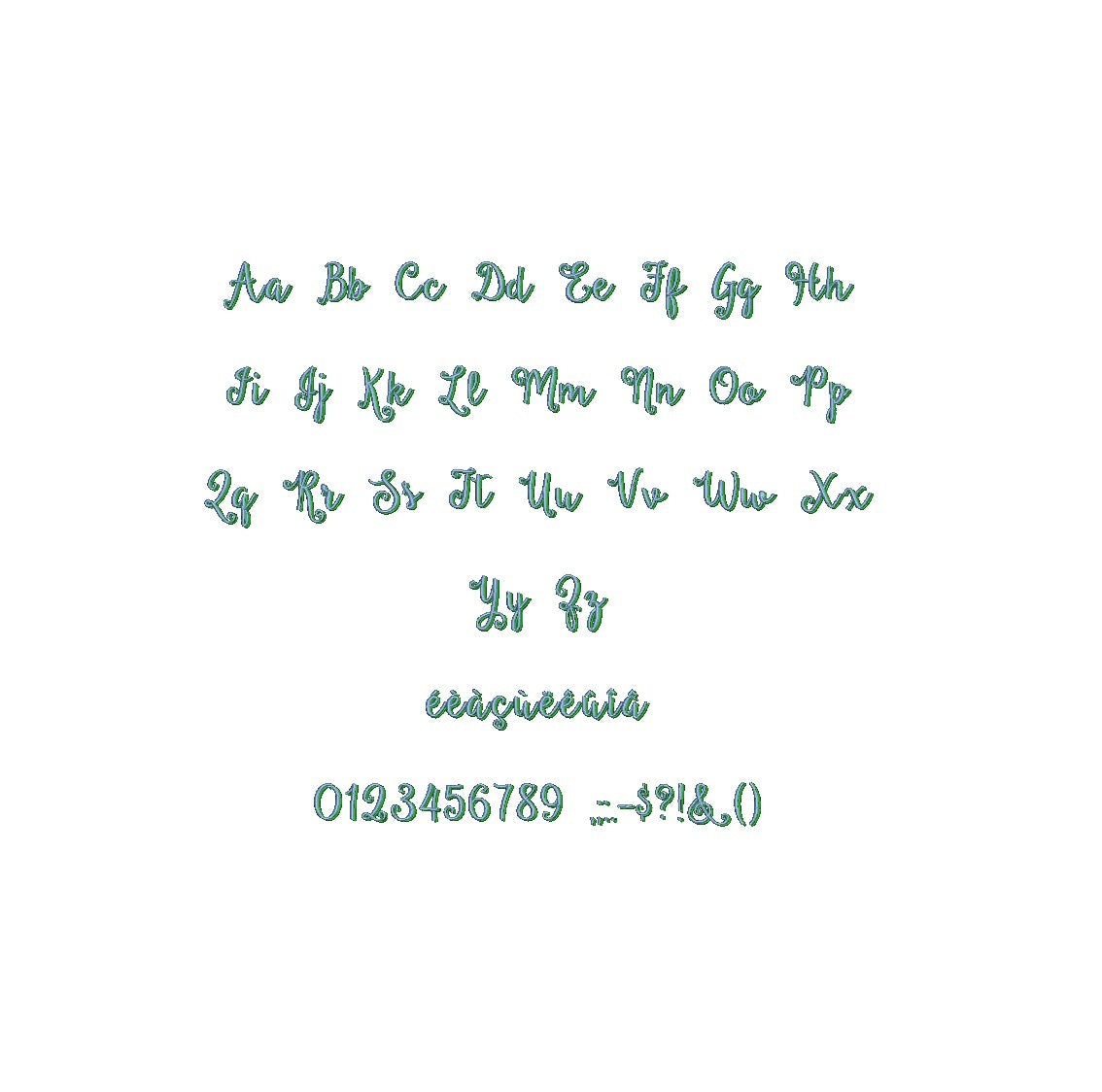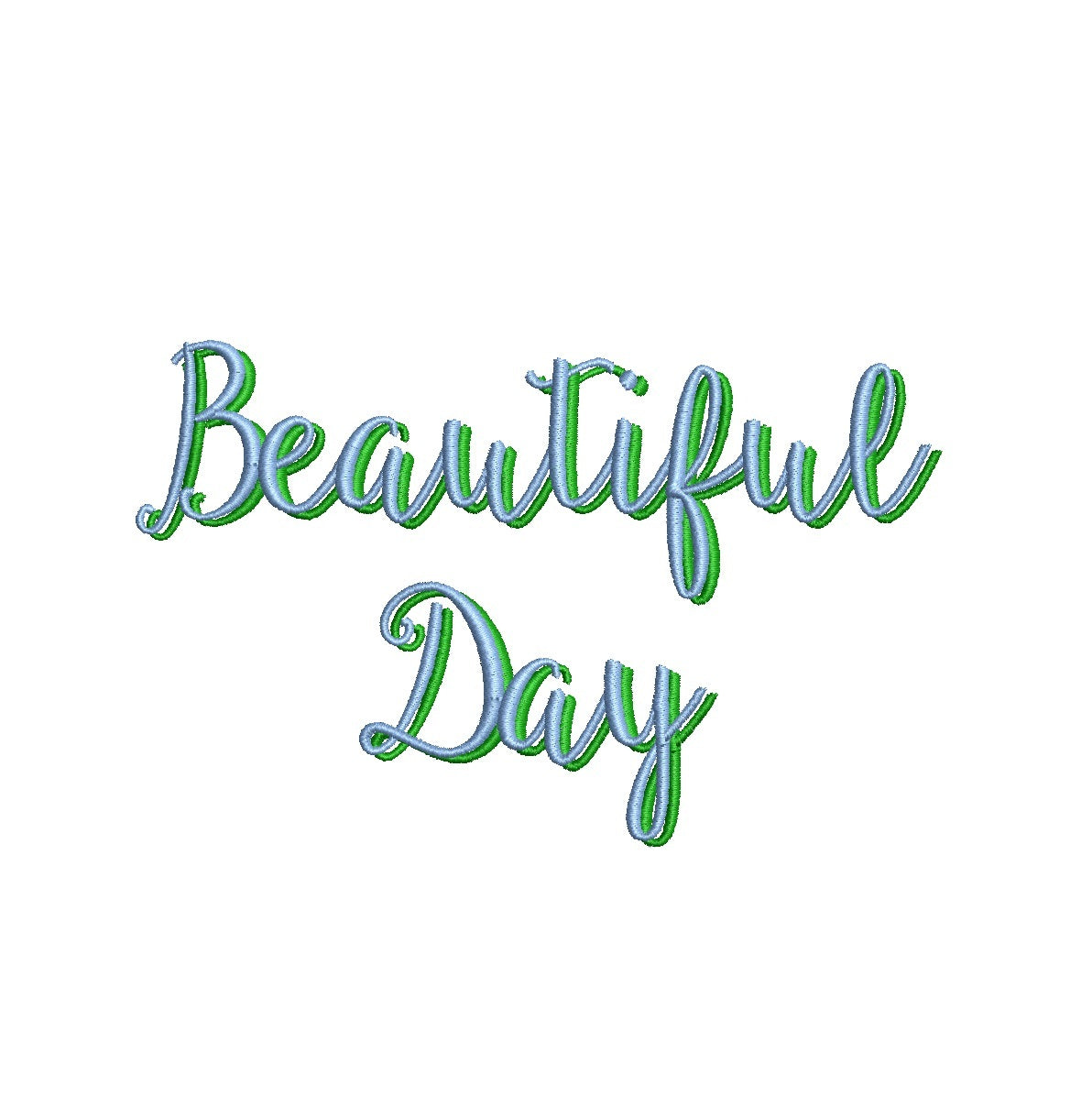
Beautiful Day Shadow ESA font
Elevate your design game with the captivating Beautiful Day Shadow ESA font. Now compatible with Wilcom Studio e4.5.6 and Hatch 3 versions and up, this font adds a touch of elegance and modern flair to your projects. Its intricate shadows and refined lines create a mesmerizing visual impact that sets your designs apart. Streamline your creative process and achieve flawless results by utilizing this font with industry-leading software. Upgrade your projects with the compatibility of Beautiful Day Shadow ESA font and make every day a beautiful one for your designs. Transform your work today!